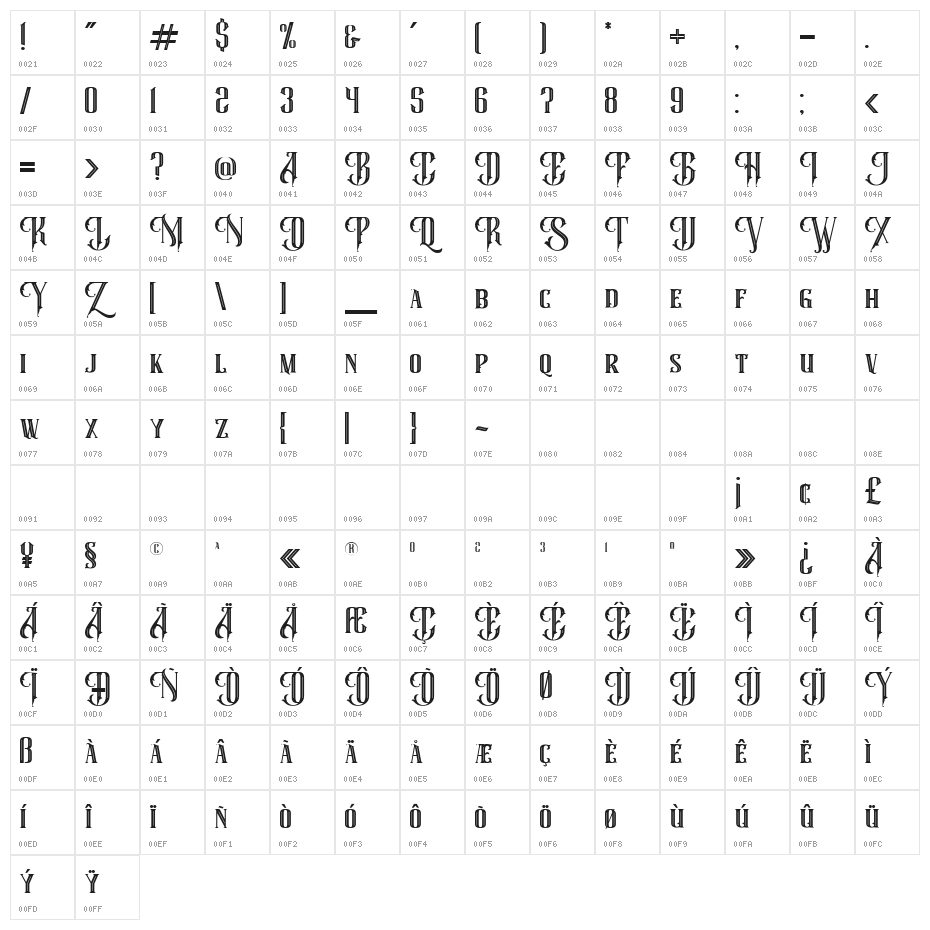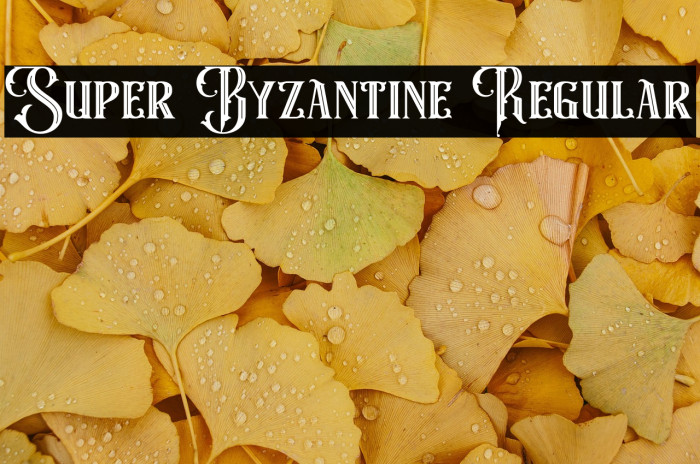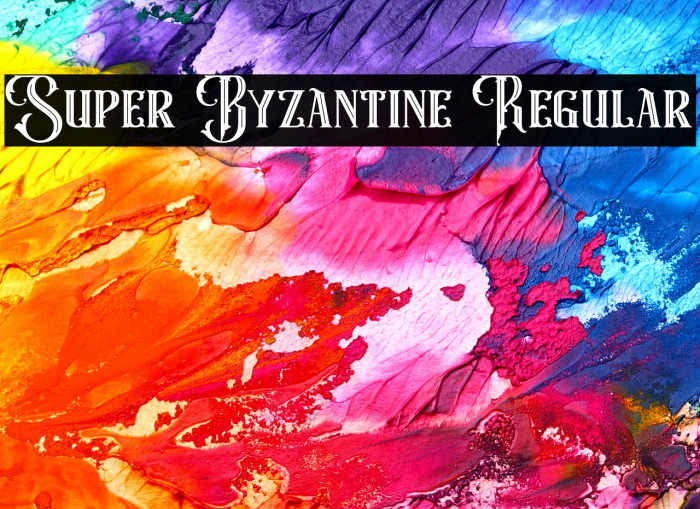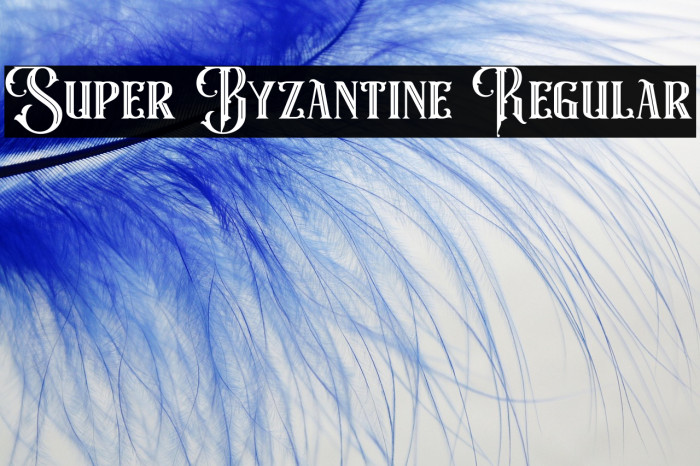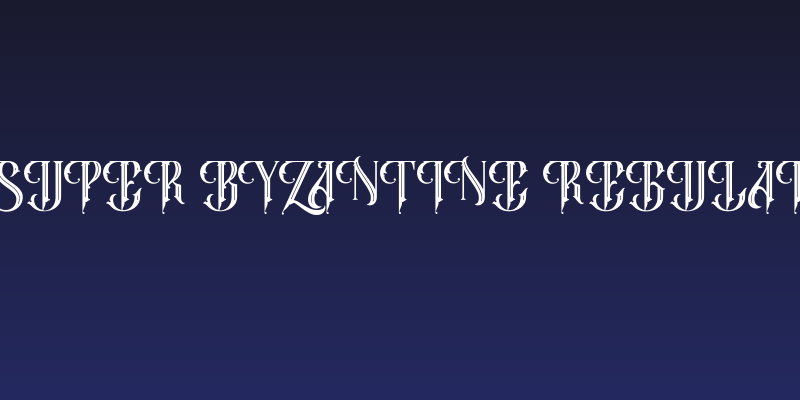
Super Byzantine Regular Font
Super Byzantine Regular Description
This font features a unique blend of intricate details and bold strokes, creating a striking visual impact. The uppercase letters are adorned with decorative flourishes, giving them a regal and ornate appearance. The lowercase letters maintain a similar style, ensuring consistency throughout the typeface. The numbers and special characters are designed with the same attention to detail, making them stand out. This font's overall aesthetic is reminiscent of historical and classical influences, yet it maintains a modern edge. The combination of thick and thin lines adds a dynamic contrast, enhancing its visual appeal.